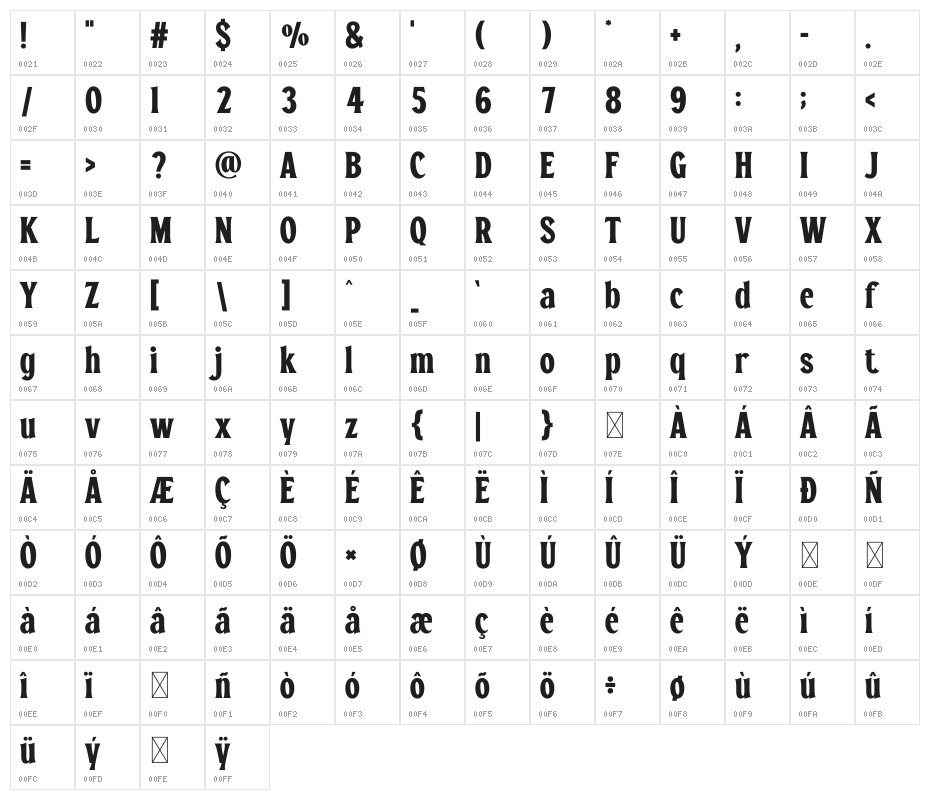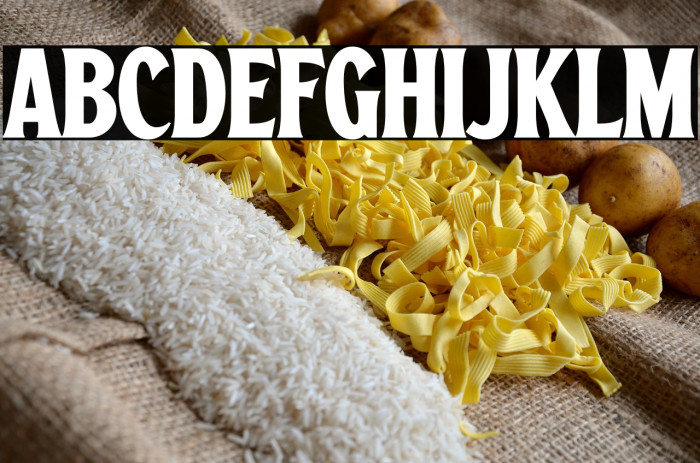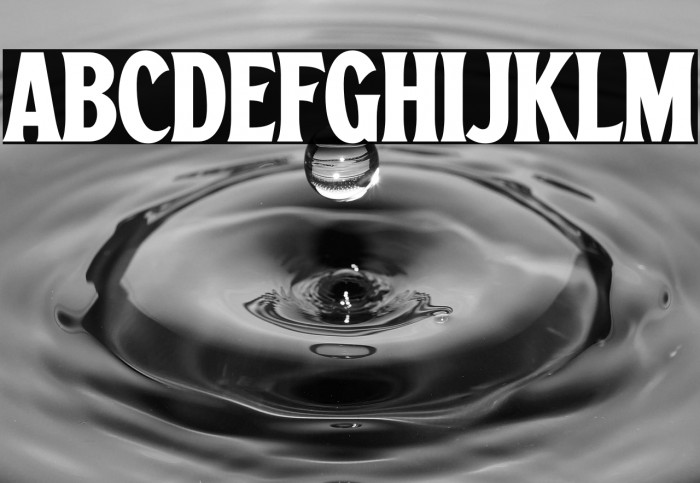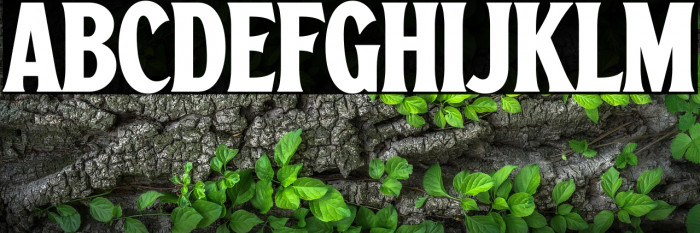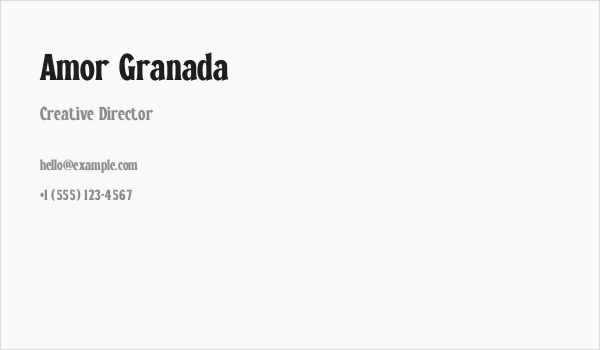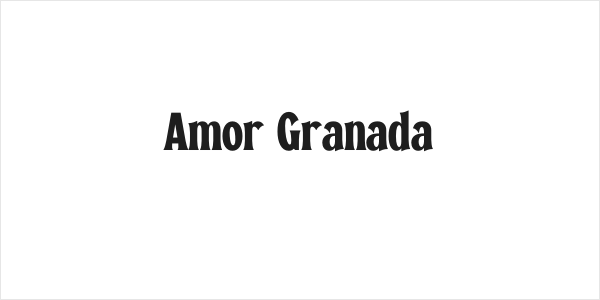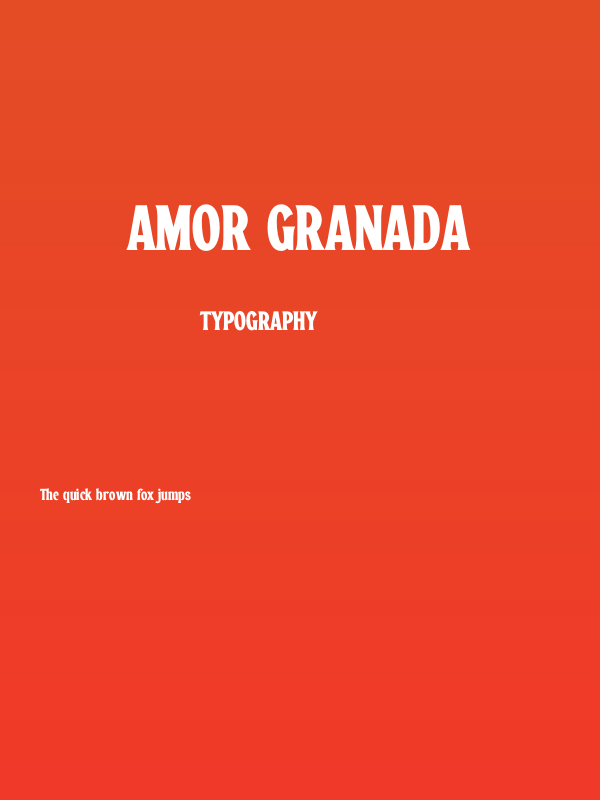
Amor Granada Font
Amor Granada Description
This font features a bold and dynamic style with a strong presence. The characters exhibit a slightly condensed form, with thick strokes and high contrast between thick and thin lines. The serifs are pronounced, adding a touch of elegance and sophistication. The overall design is both modern and classic, making it versatile for various applications. The uppercase letters are robust and commanding, while the lowercase letters maintain a consistent style with a slightly playful touch. The numerals are clear and bold, ensuring readability. Special characters are well-integrated, maintaining the font's cohesive appearance.
| Overall Style | Modern Classic |
| Proposed Projects | Ideal for branding, headlines, posters, and editorial design where a strong and elegant presence is desired. |